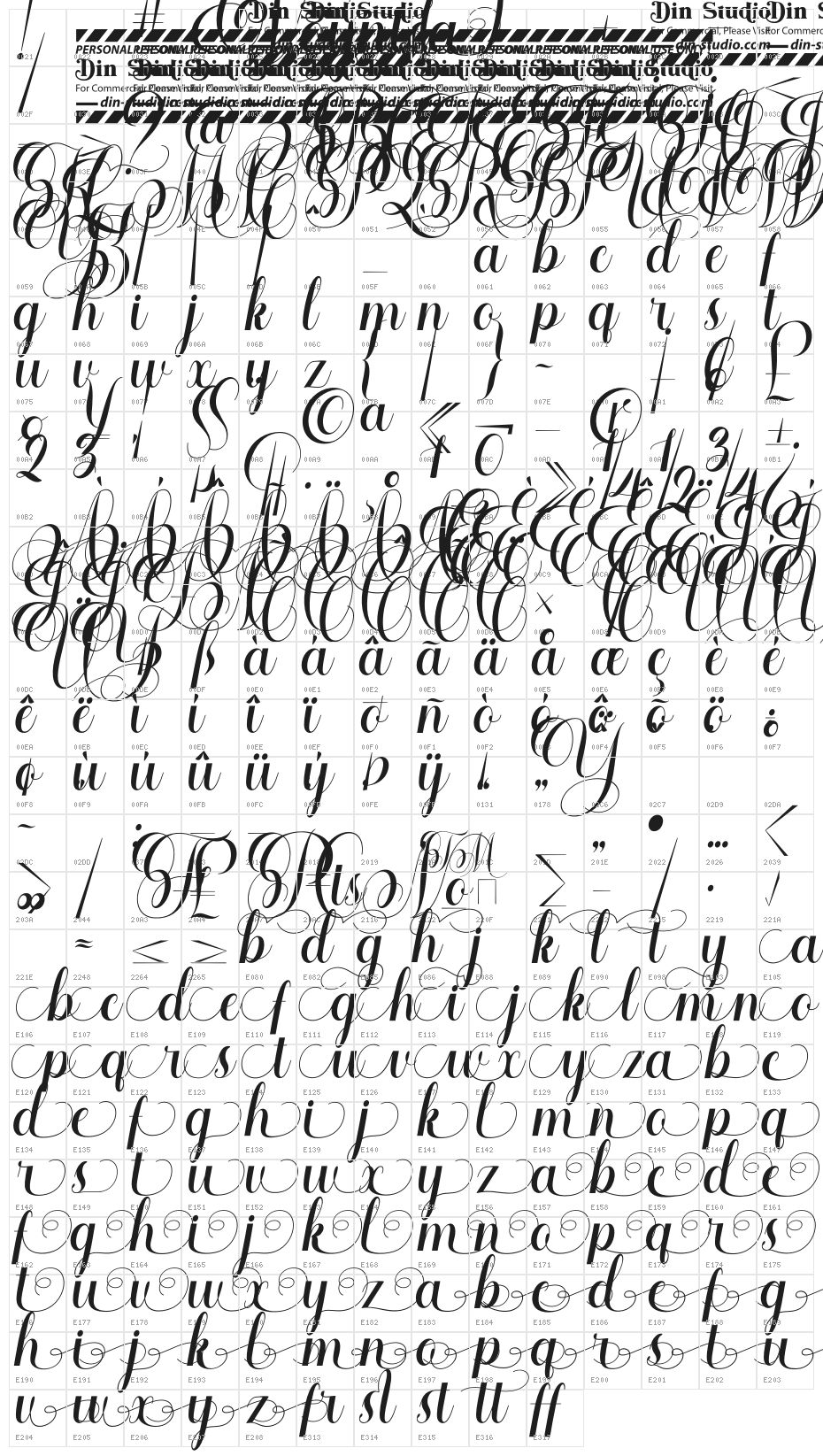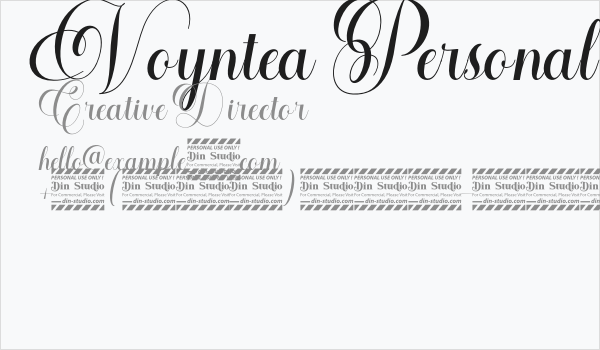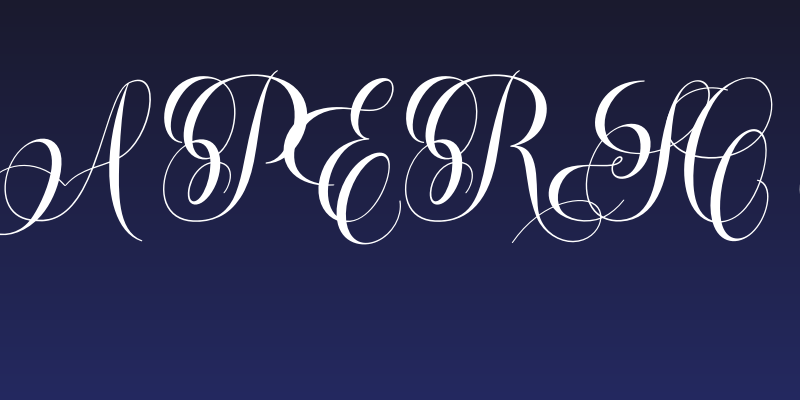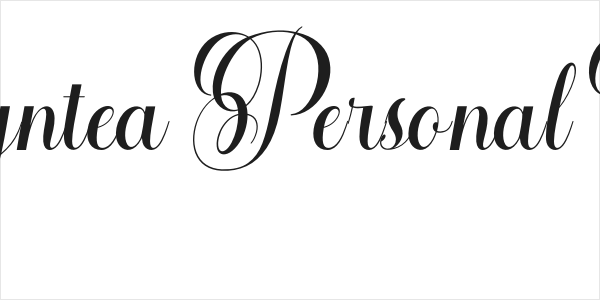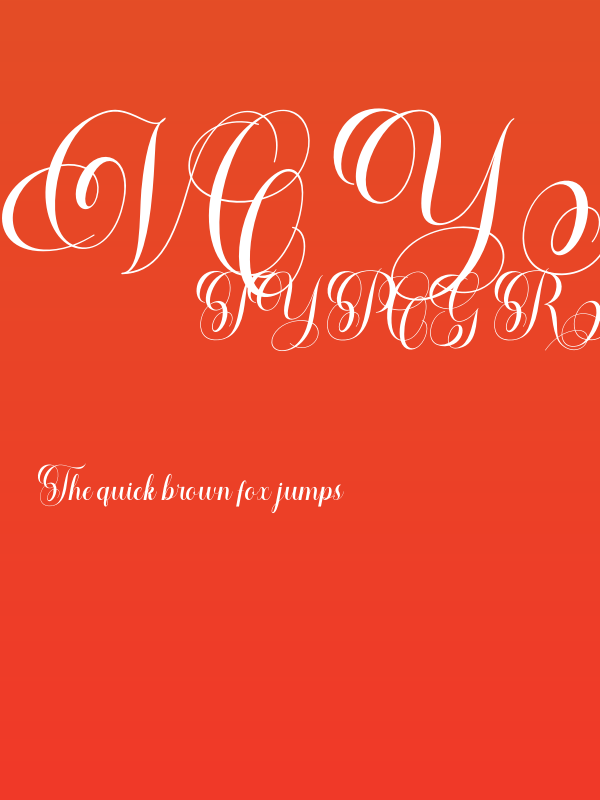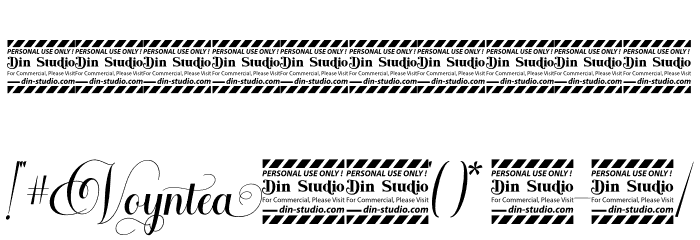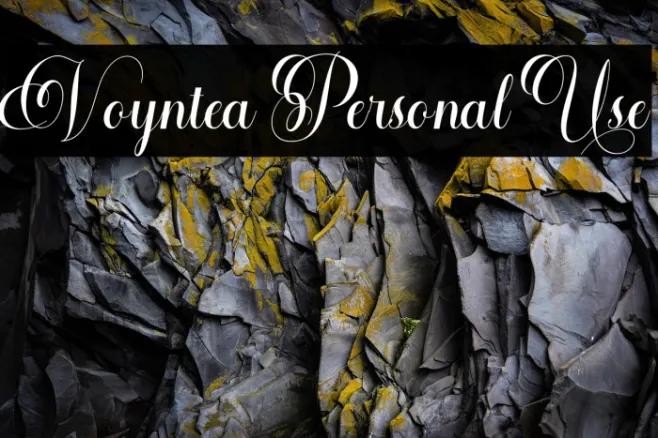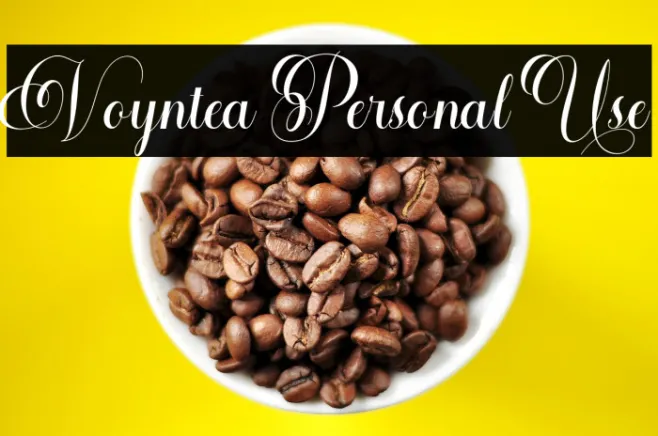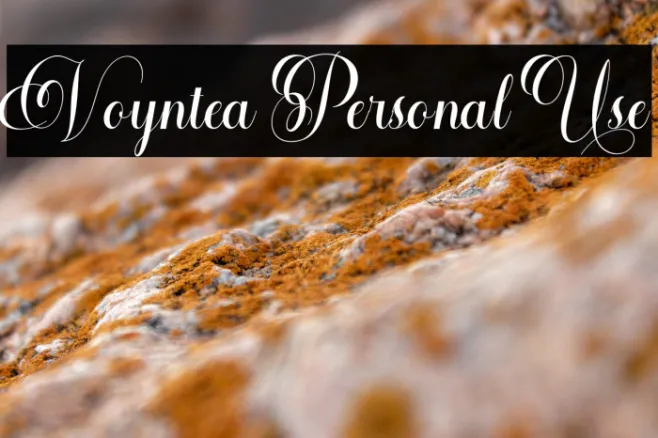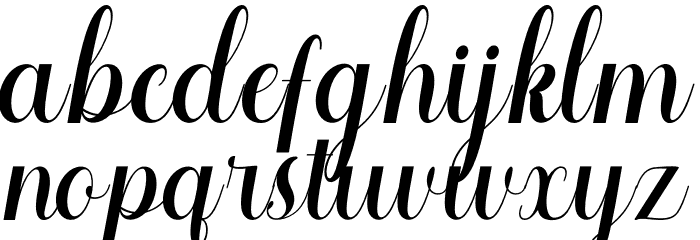
Voyntea Personal Use Font
Voyntea Personal Use Description
This elegant script font features a sophisticated and flowing design, characterized by its intricate swirls and loops. The uppercase letters are particularly ornate, with each character displaying unique flourishes that add a touch of luxury and refinement. The lowercase letters maintain a consistent style, offering a smooth and graceful appearance. The font's overall aesthetic is both classic and modern, making it versatile for various design applications. Its high contrast between thick and thin strokes enhances readability while maintaining an artistic flair. The special characters and numerals are designed to complement the alphabet, ensuring a cohesive look across all text elements.
| Overall Style | Elegant, Classic |
| Use Case | Logos, Invitations, Decorative Headlines |
| Proposed Projects | Ideal for wedding invitations, luxury branding, elegant logos, and decorative headlines. |